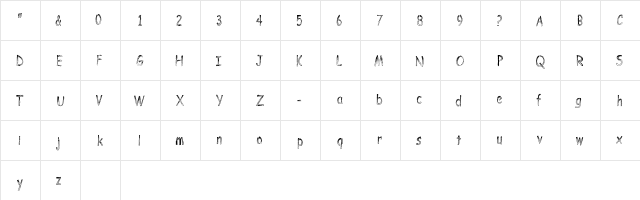
BombingStencil Regular
Design Context for BombingStencil Typeface
BombingStencil borrows the utilitarian aesthetic of stencil lettering, with its characteristic cutaways and no-frills construction lending an industrial edge.
Ideal for industrial branding, streetwear, military-adjacent aesthetics, and urban signage projects.
Pro Tip: Pair BombingStencil with raw, utilitarian design elements — exposed concrete textures, flat colour, and minimal ornamentation suit it well.